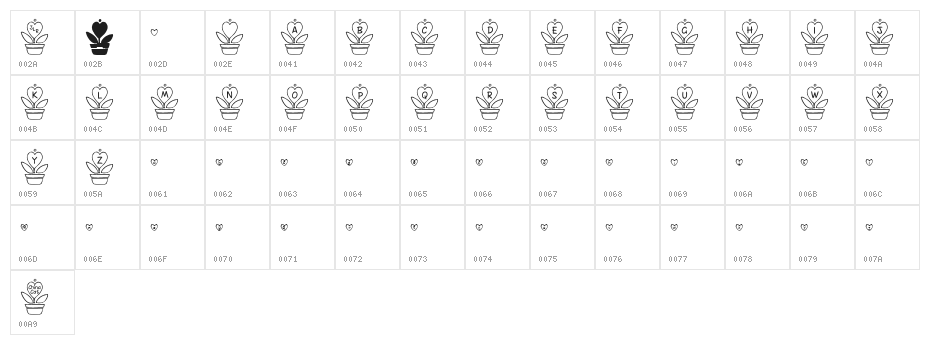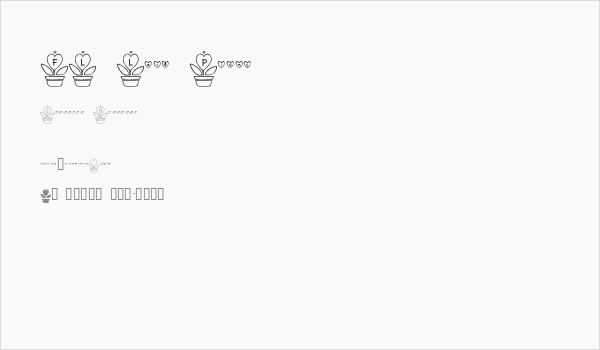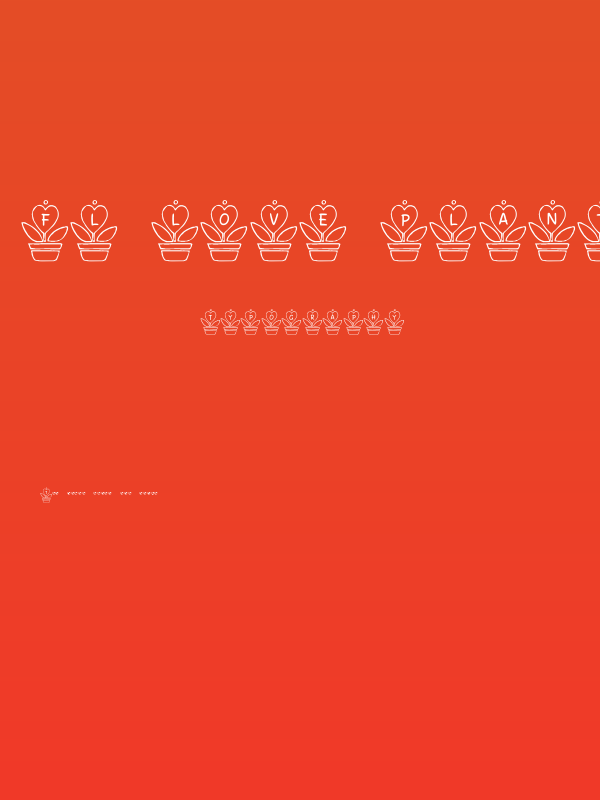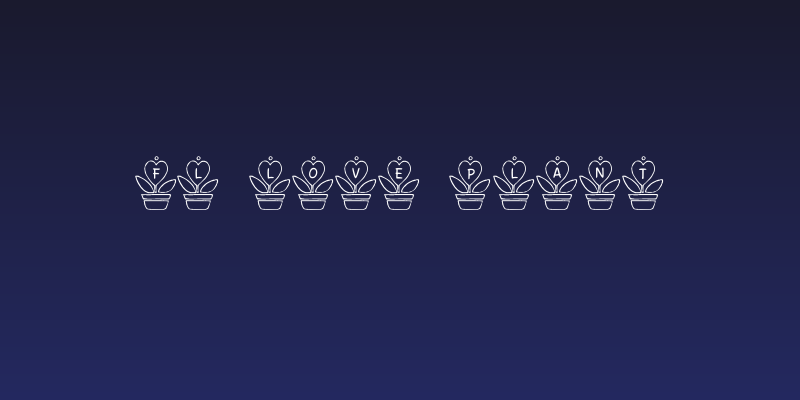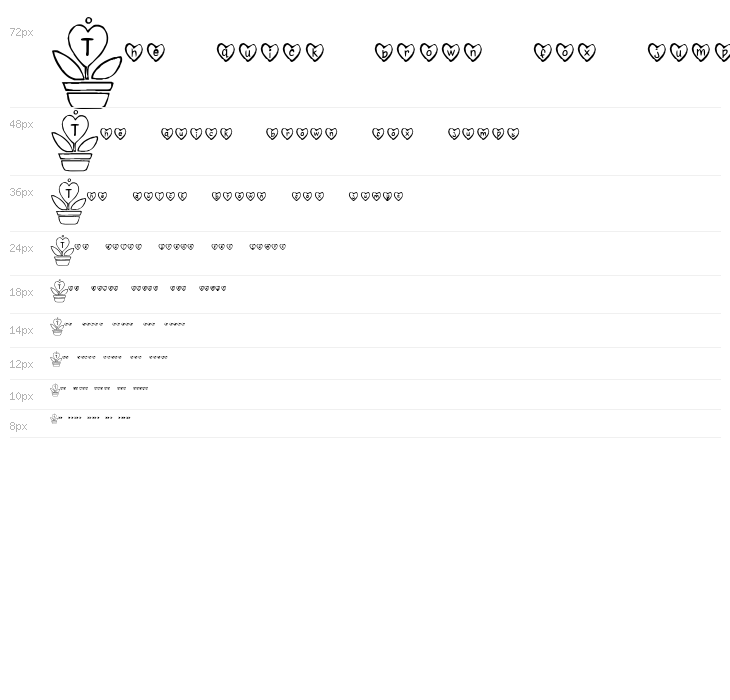
FL Love Plant Font
FL Love Plant Description
This whimsical and decorative font features uppercase letters designed as heart-shaped leaves sprouting from potted plants, giving it a playful and organic feel. The lowercase letters are encased in heart shapes, maintaining the theme of love and nature. The numbers are represented as solid rectangles, which is a unique and bold choice, contrasting with the delicate and intricate design of the letters. Special characters are creatively integrated into the plant motif, adding a cohesive and charming touch to the overall design. This font is ideal for projects that require a touch of nature and affection, such as greeting cards, wedding invitations, or eco-friendly brand logos.